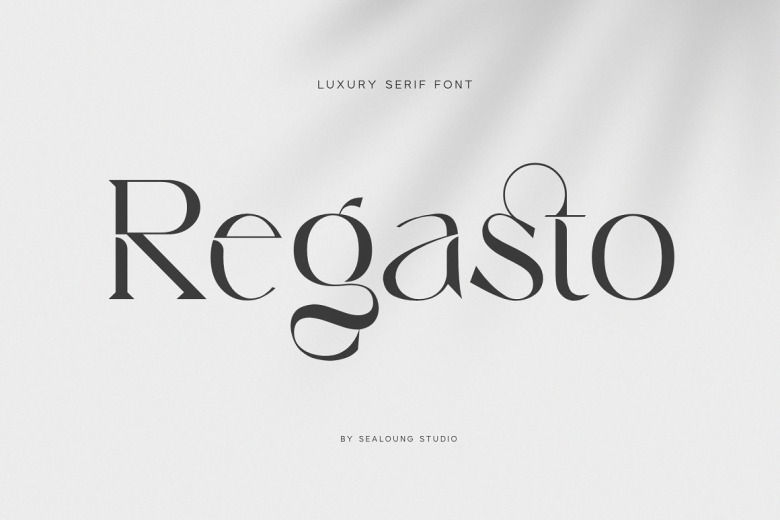
Regasto Font
Regasto is a display serif font with a luxury, elegant, modern, unique and classy look. One of the most elegant, exquisite yet strong fonts. This font is made to bring out a modern and stylish view of what you make. Regasto contains upper & lowercase characters, all punctuation, and numerals. Also features ligatures and alternate characters to help the text flow naturally and add a custom-made feel.
Its lighter weights are well-suited for body text. The available stylistic alternates offer some different characters that give your logo or business card a unique look. This font crafted specials for luxury-themed projects, ready to use on Magazine, Social Media, Branding, Logo, and Many more that needs Luxury touches.
Regasto Serif Font